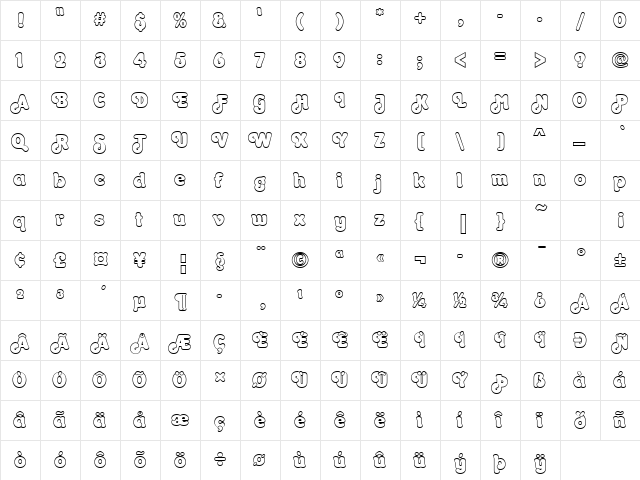
Octopuss Outline Regular
Design Context for Octopuss Outline Typeface
Octopuss Outline brings ornamental detail and strong personality to headlines and identities, where visual impact matters more than quiet functionality.
Font Pairing: Pair with a clean neutral sans-serif for body copy to let Octopuss Outline's character lead without overwhelming the composition.
Pro Tip: Use Octopuss Outline exclusively at display sizes — it was designed to be seen, not read at length. Let a neutral companion handle body copy.